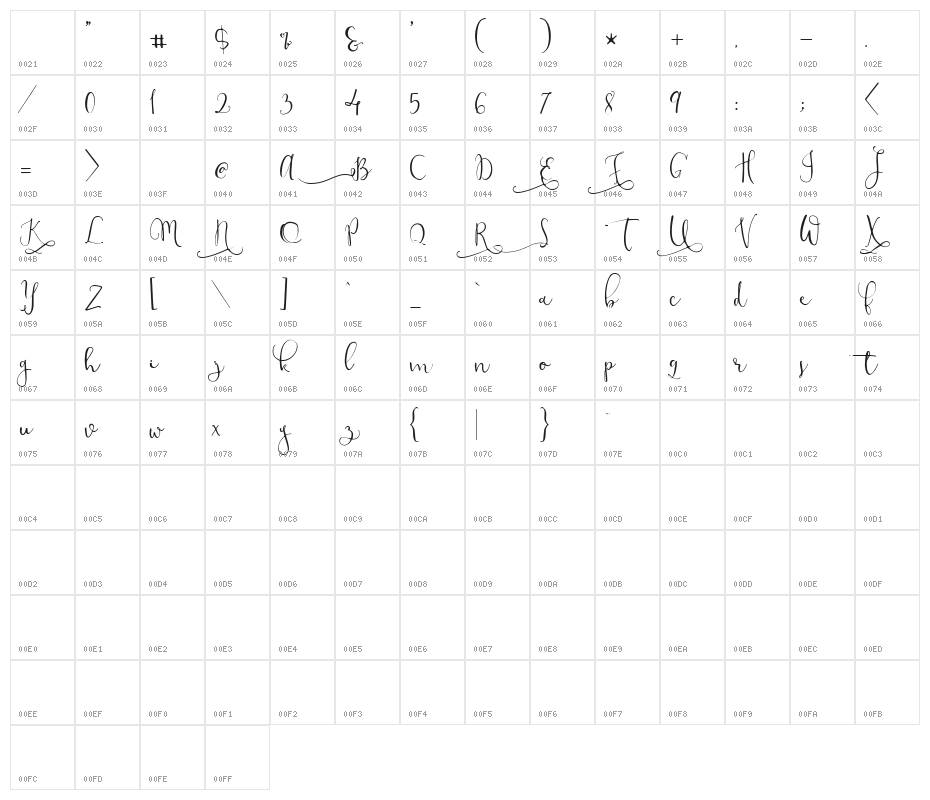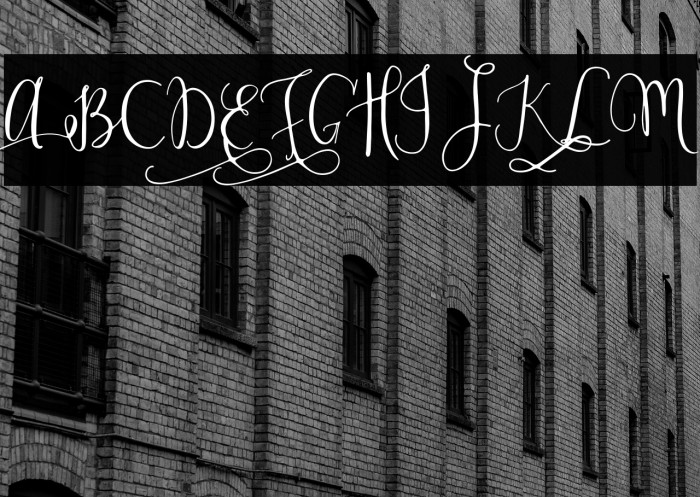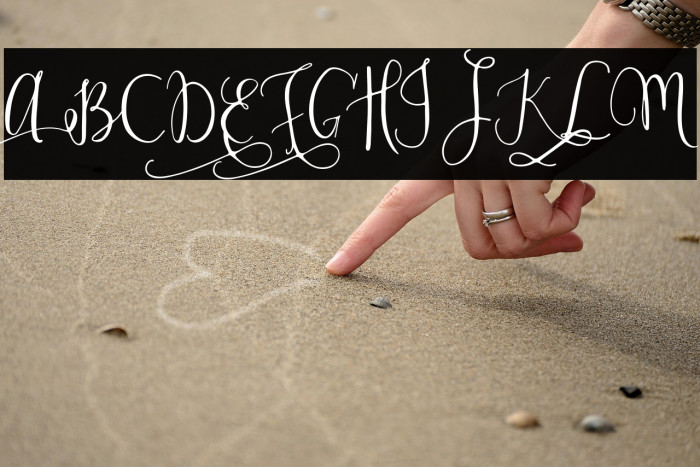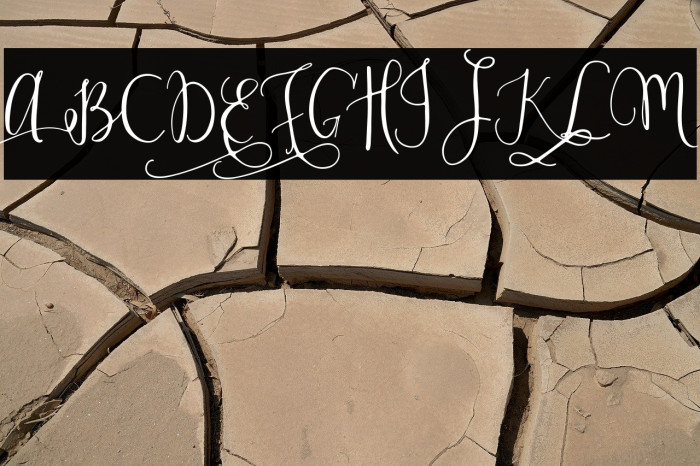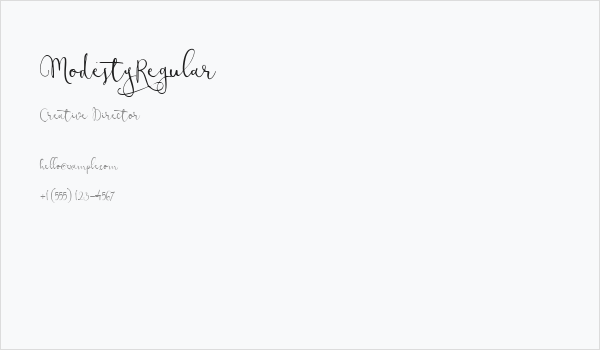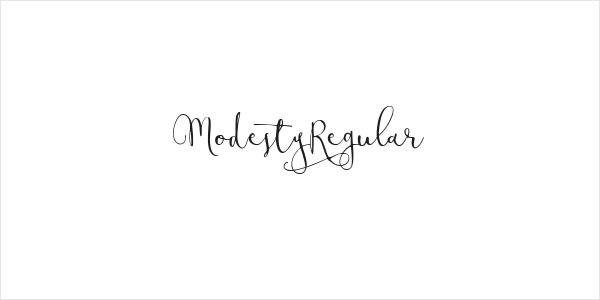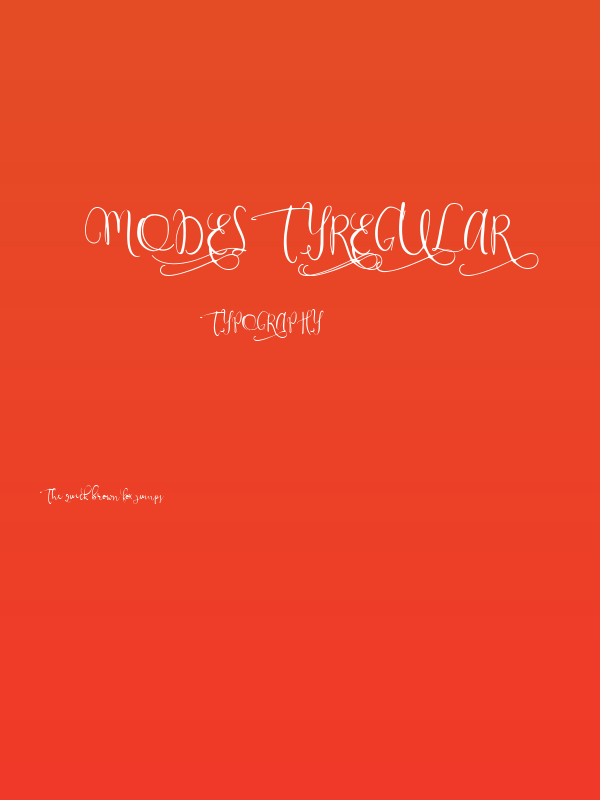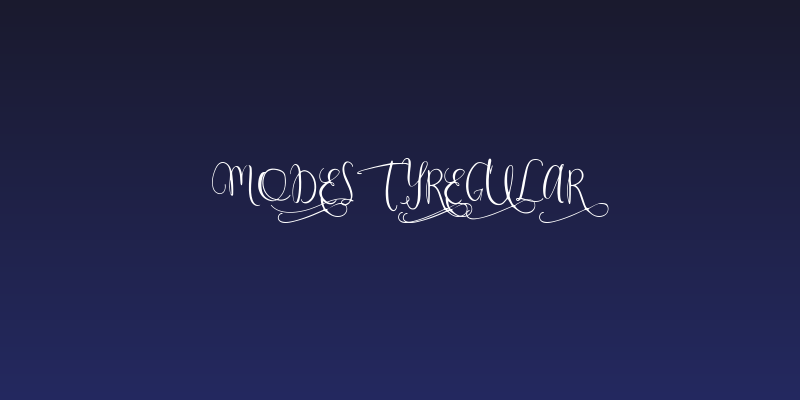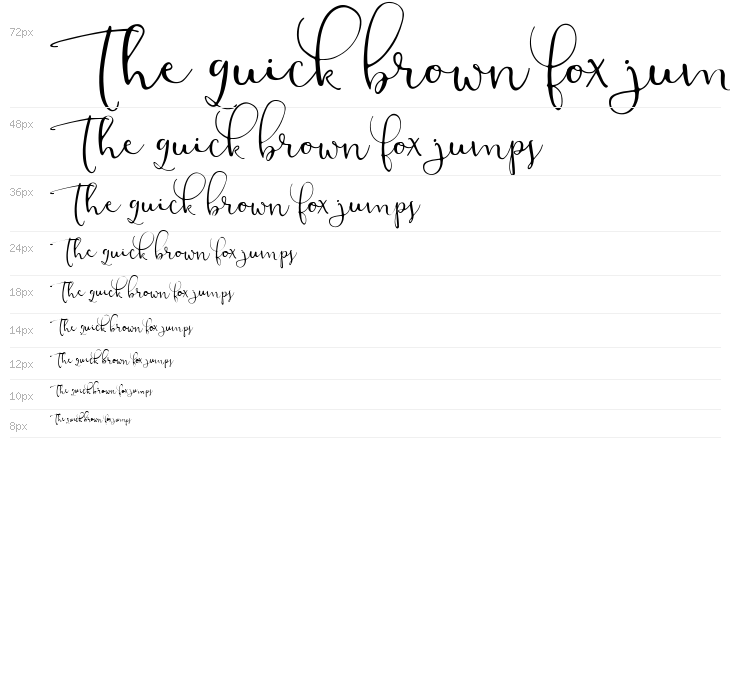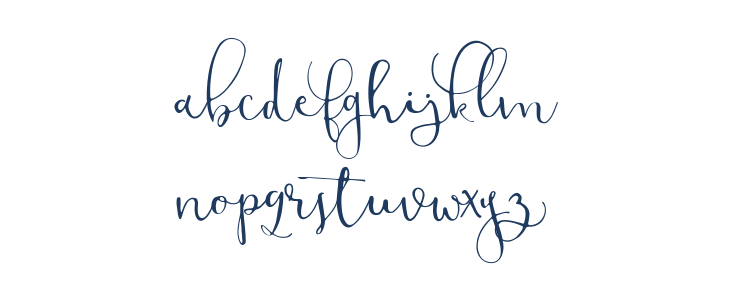
ModestyRegular Font
This elegant script font features intricate swashes and flourishes, giving it a sophisticated and decorative appearance. The uppercase letters are particularly ornate, with extended loops and curves that add a touch of luxury and refinement. The lowercase letters maintain a consistent flow, enhancing readability while still retaining the decorative style. Numbers and special characters are designed to match the overall aesthetic, making this font suitable for formal invitations, branding, and other creative projects. The stroke contrast is medium, providing a balanced look that is both stylish and legible.